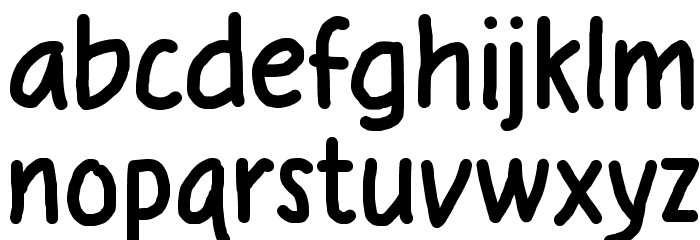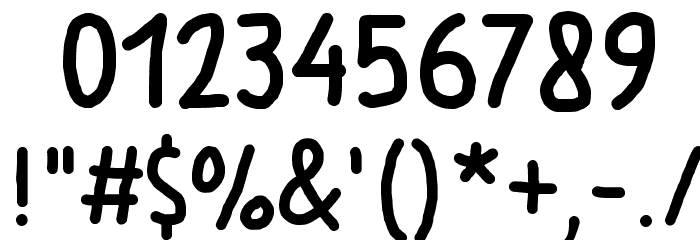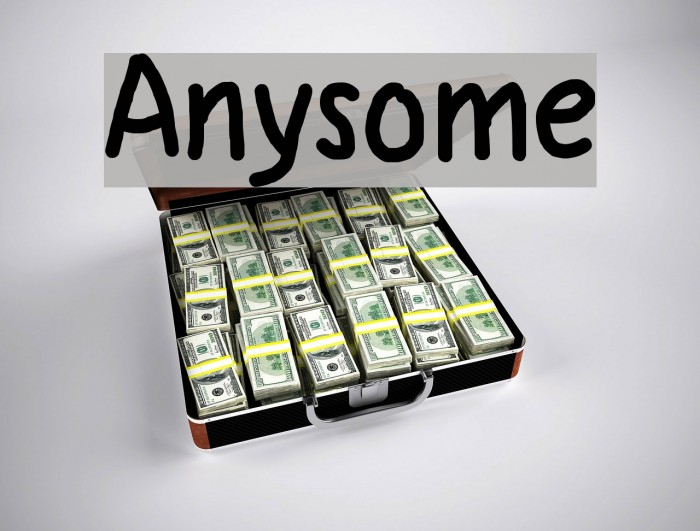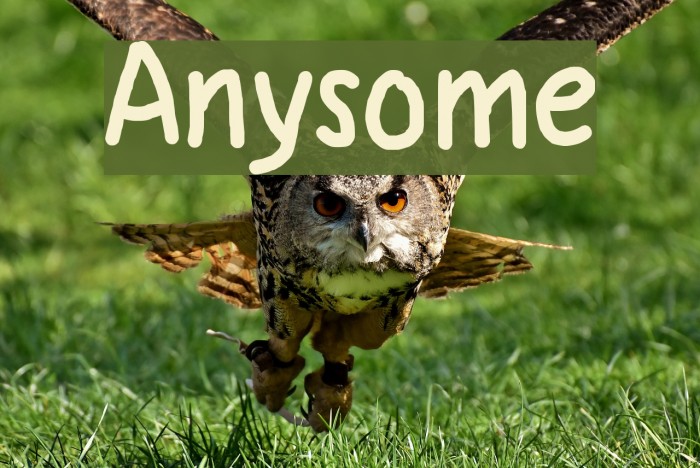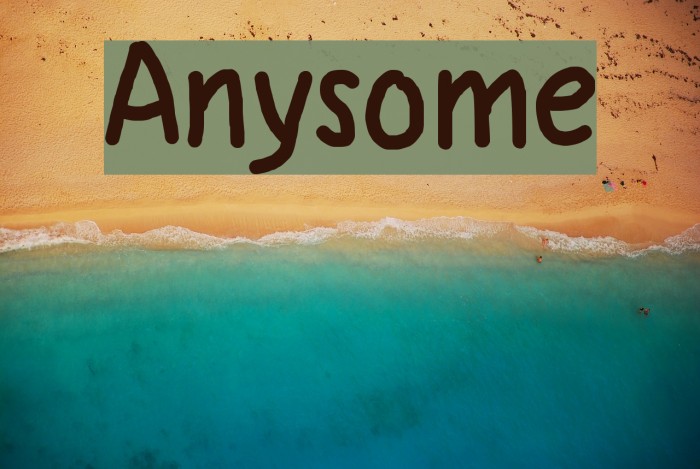
Anysome Font
This font features a playful and casual handwritten style, characterized by its rounded, slightly irregular letterforms that convey a sense of warmth and approachability. The uppercase and lowercase letters maintain a consistent flow, with a slight slant that adds to the informal aesthetic. The numerals and special characters are designed to match the overall style, ensuring a cohesive look across all text. The font's organic feel makes it suitable for projects that require a personal touch, such as invitations, greeting cards, or informal branding.
A playful, handwritten font with rounded, informal letterforms.
- Proposed Projects: Ideal for invitations, greeting cards, children's books, and casual branding.
- Category: Handwritten
- Overall Style: Casual
- Use Case: Headlines, Logos, Informal text